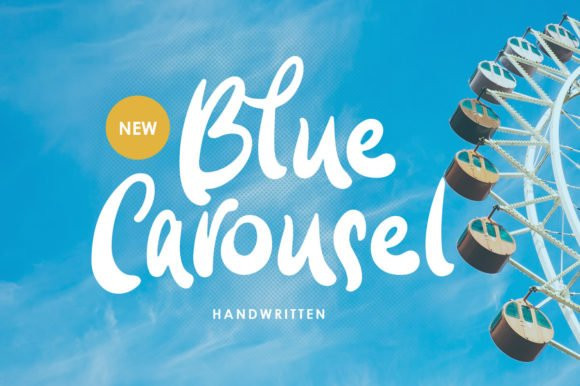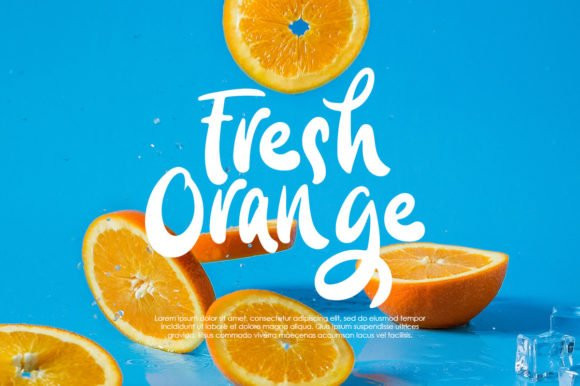
Blue Carousel Font
Blue Carousel is a cool, adaptable and friendly display font. This font is PUA encoded which means you can access all glyphs and swashes with ease! Add it confidently to your favorite creations and let yourself be amazed by the outcome generated.